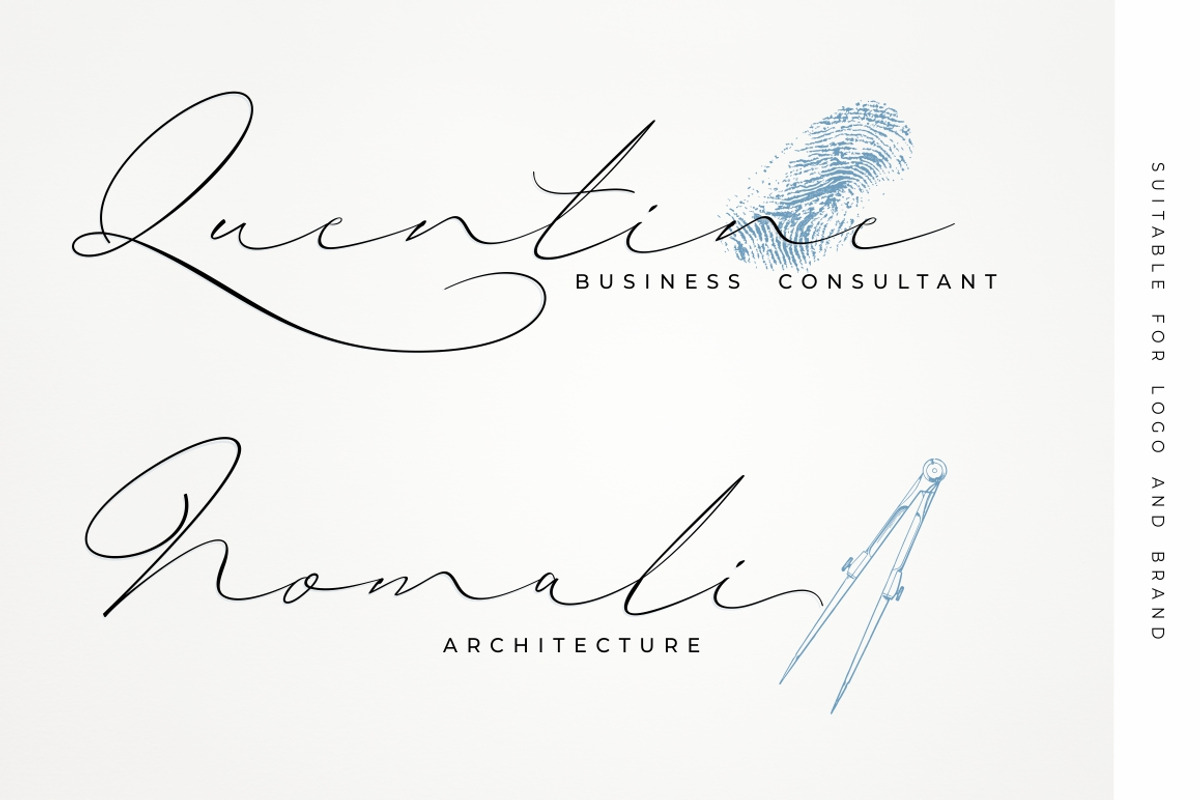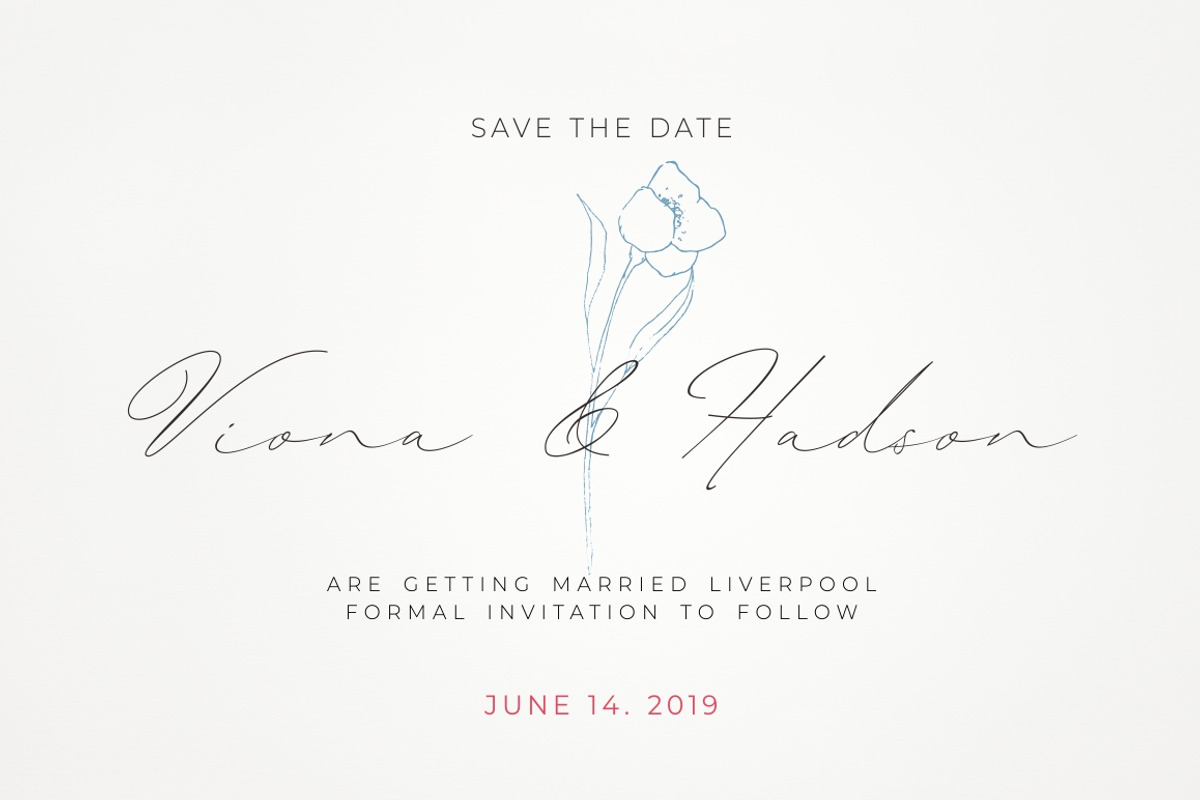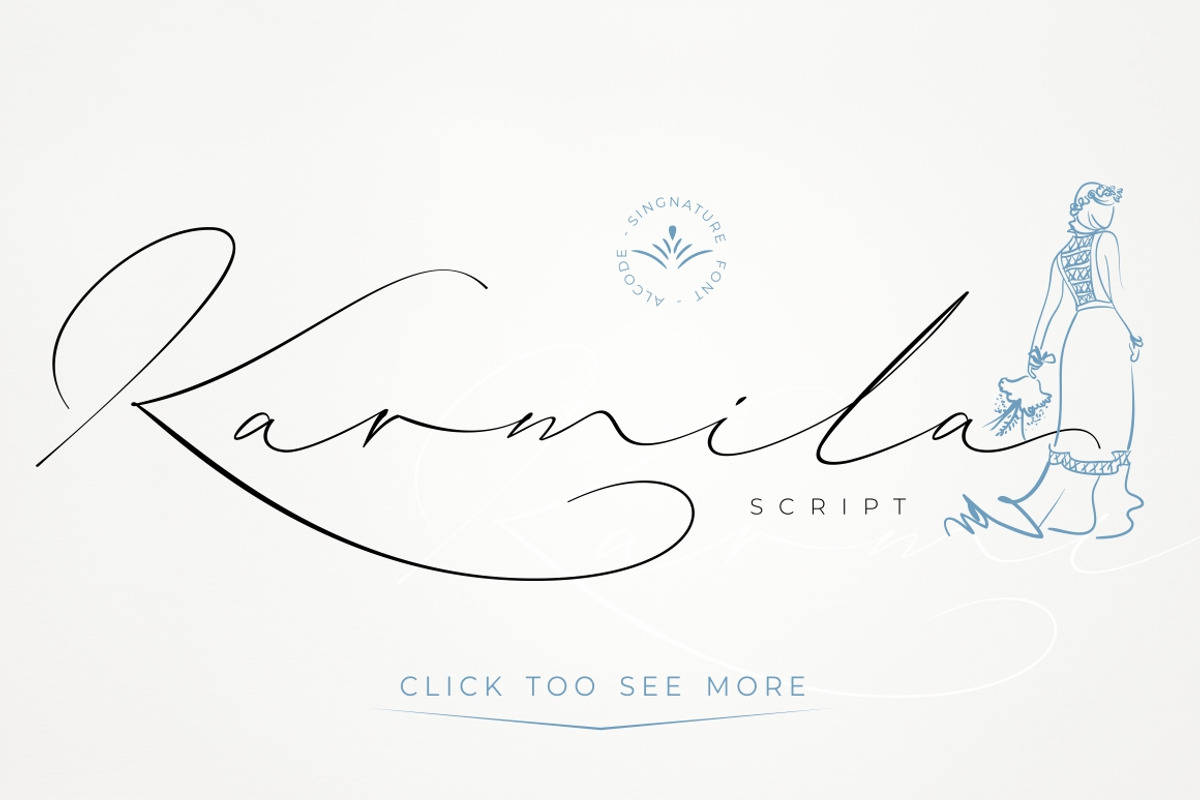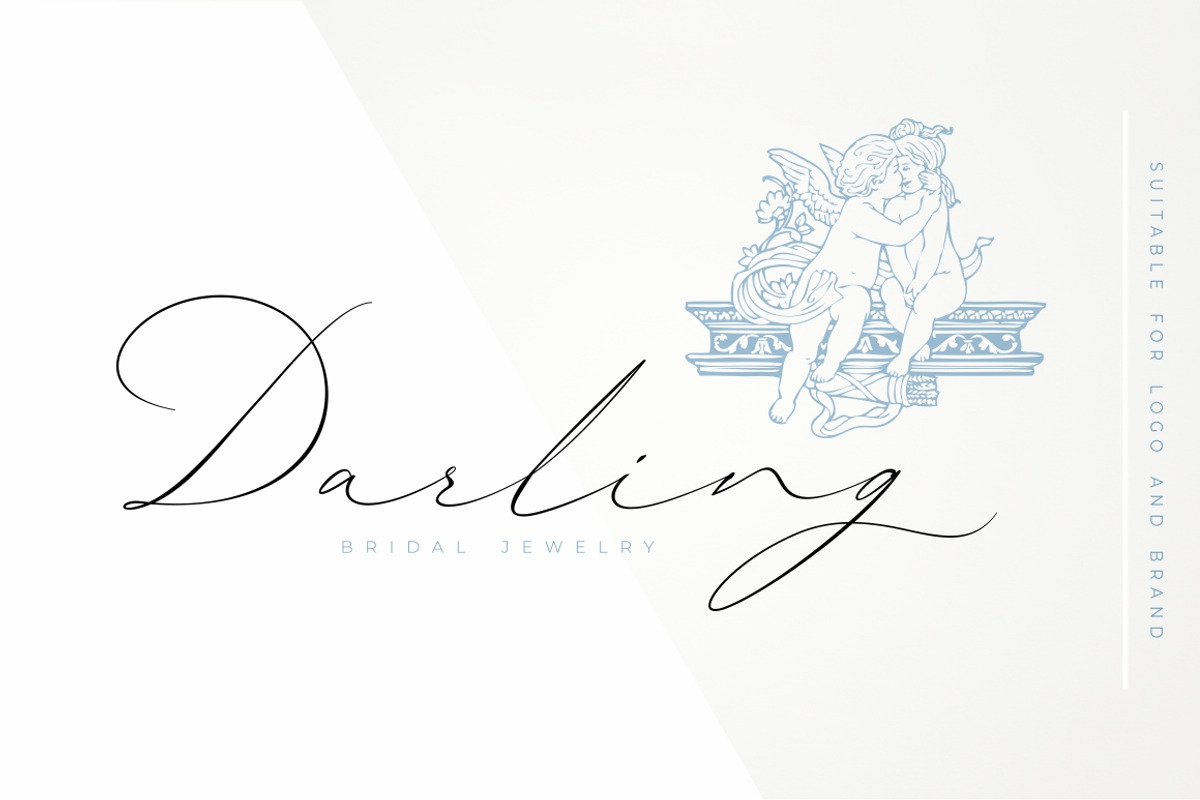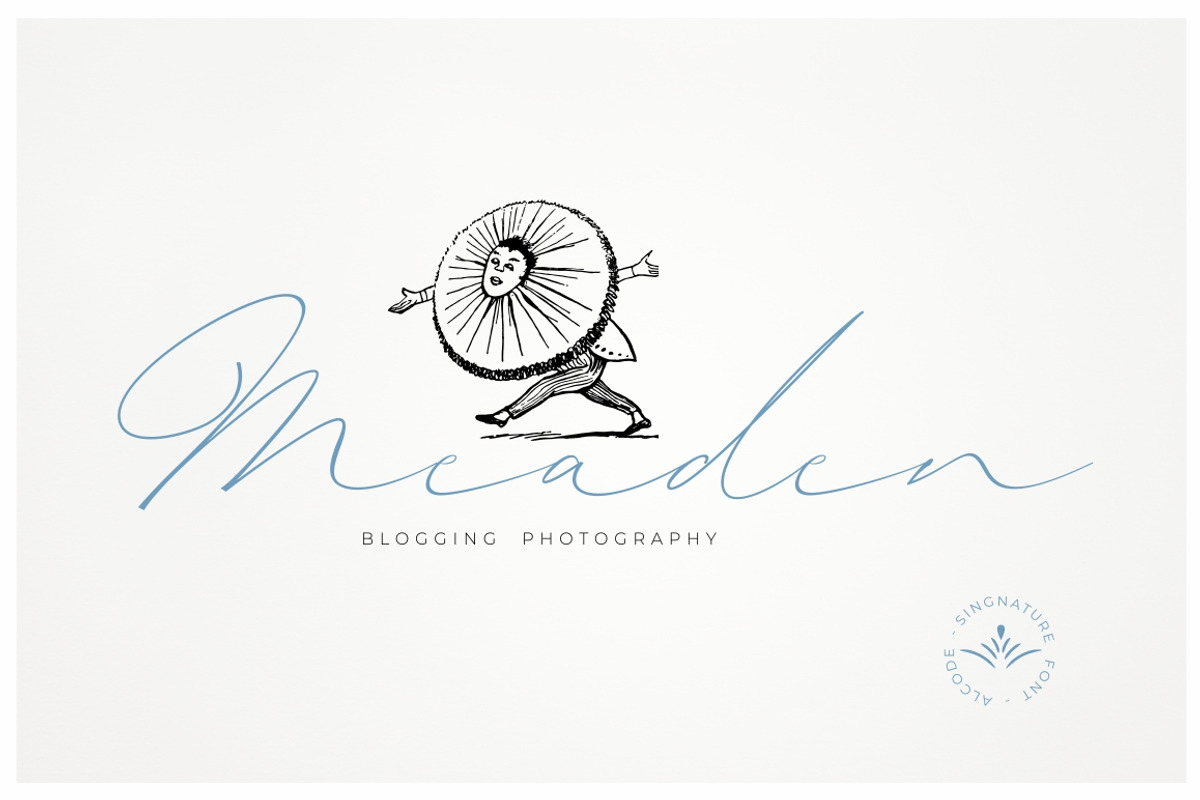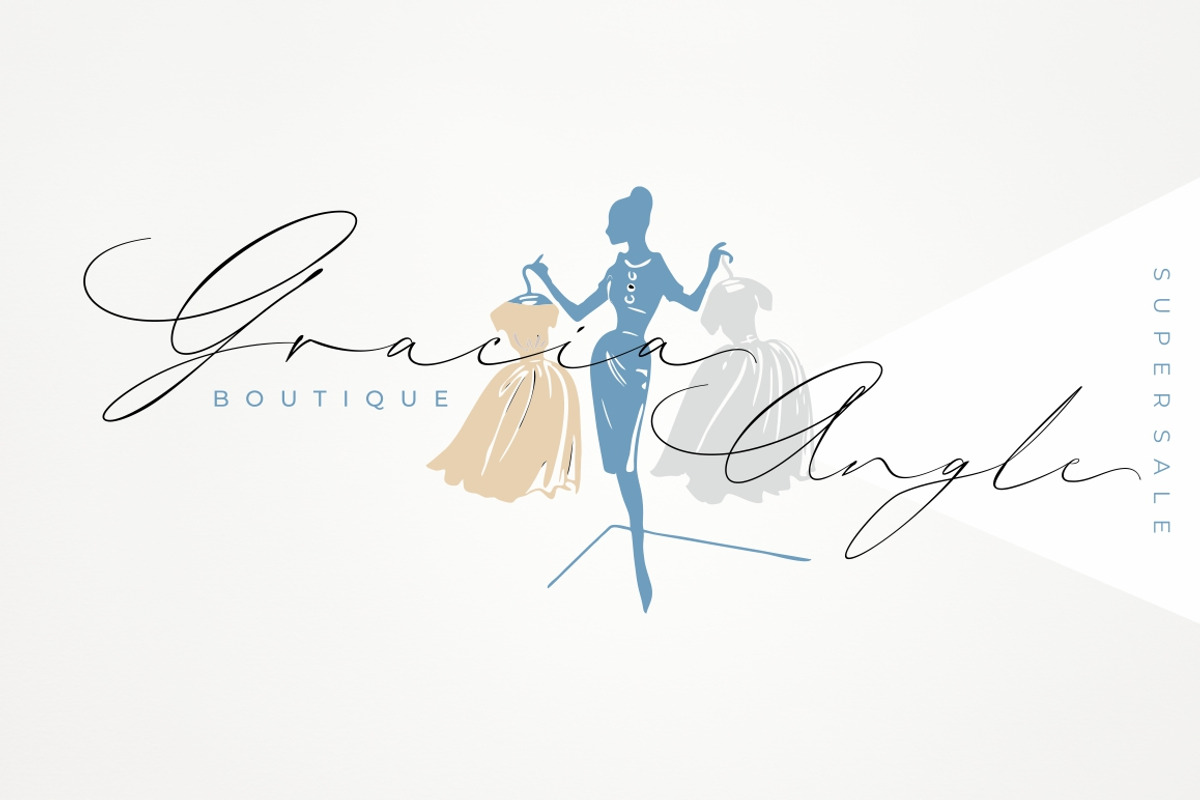
Karmila Script
Introducing Karmila Script
Karmila Script is a decorative signature font, where you can achieve the feeling of handwritten letters. So that this font is perfect for your modern graphic design needs, such as social media content, wedding invitations, book covers, greeting cards, logos, branding, business cards and certificates, actually for any design work that requires a formal or luxurious impression.
Try Karmila Script, enjoy the richness of OpenType features and let her fun and elegant excitement make you happy and enhance your creativity! You can use this font very easily.